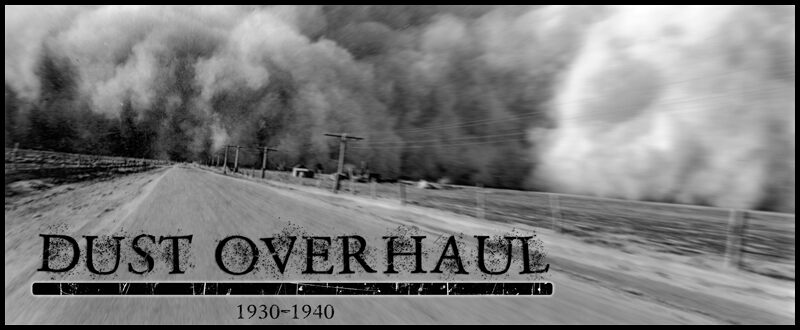
Dust Overhaul by Guilhem Greco is a free eroded serif display font with high-contrast capitals and a severe editorial silhouette. Its scattered abrasion ranges from fine speckling to broad chipped patches.
Poster design is its clearest home, where formal letter shapes make the damage feel deliberate rather than merely dirty. It also suits album covers, fashion graphics, and theatrical event branding with a dark or weathered direction. Its audience includes designers working in music, alternative culture, and dramatic publishing.